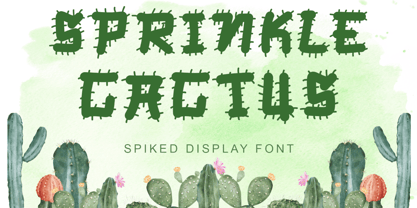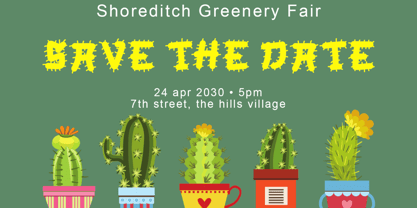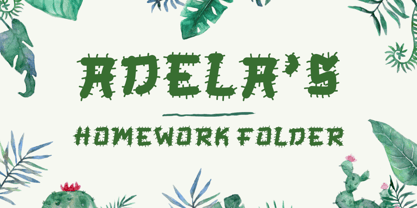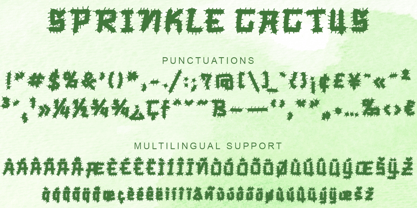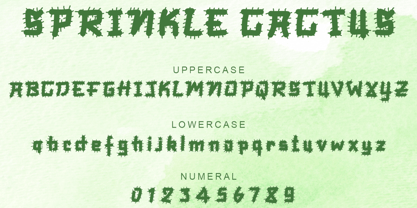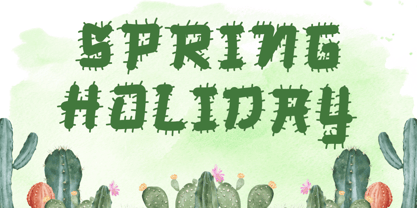
Sprinkle Cactus
by Yoga Letter
The Sprinkle Cactus Font Family was designed by Isroni Yoga Prasetya and published by Yoga Letter. Sprinkle Cactus contains 1 styles.
"Sprinkle Cactus" is a very cute spiky display font. This font is equipped with uppercase, lowercase, numerals, punctuations and multilingual support. Very suitable for comics, cartoons, book titles, posters, prints, banners, branding, stickers, logos, branding, mockups and others.
Designers: Isroni Yoga Prasetya
Publisher: Yoga Letter
Foundry: Yoga Letter
Design Owner: Yoga Letter